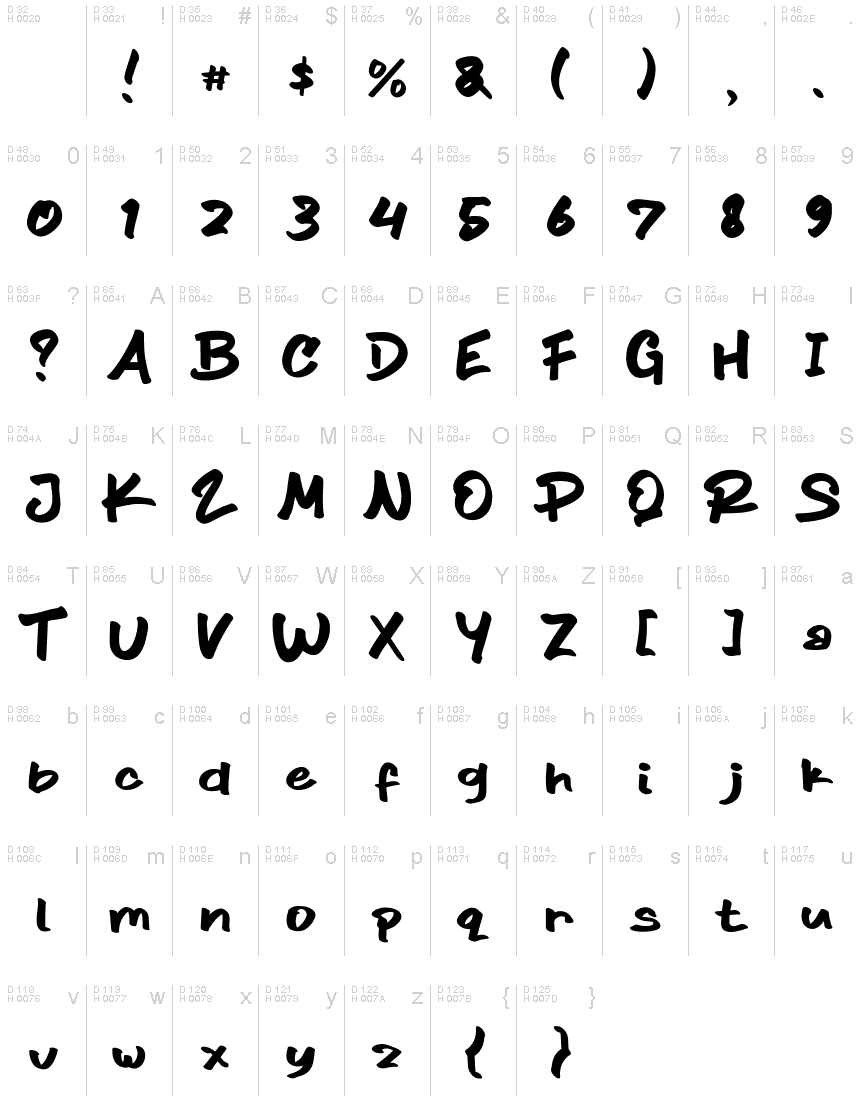
Skater Pack
Skater Pack, the graffiti-inspired semi-bold font crafted by Doli Harahap, is the perfect typeface for designs that need a touch of urban edge. With an expanded width that lends itself to bold statements and attention-grabbing headlines, Skater Pack is ideal for skateboarding brands, music festival posters, and streetwear fashion labels. The distressed edges and playful curves of this font evoke the underground culture of skaters and street artists, making it a great choice for rebellious projects that demand a unique aesthetic. Whether you're designing flyers or creating digital artwork, Skater Pack is sure to add an eye-catching punch to your work.